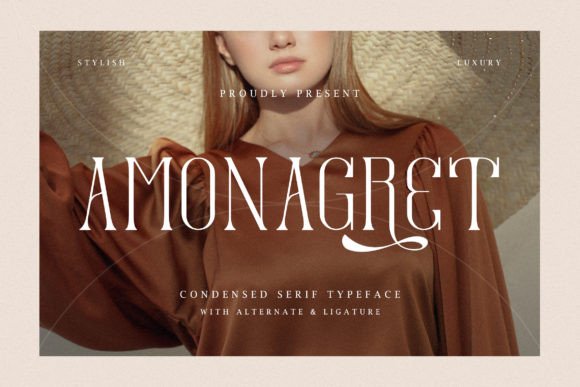
**Introducing Amonagret: The Font of Enchantment**
Unleash the magic of typography with Amonagret, a captivating serif font that will leave an everlasting mark on your designs. Its timeless elegance and alluring curves have been meticulously crafted to evoke a sense of sophistication and allure.
Step into a world of creative possibilities where Amonagret's graceful lines dance across your digital canvas. Whether you seek to cast a spell over your brand's image, weave enchantment into your invitations, or craft enchanting social media posts, this font will be your trusted ally.
With its versatile personality, Amonagret seamlessly transforms from ethereal to powerful, enchanting your audience at every turn. Its unique character makes it the perfect choice for logos, branding materials, headlines, body text, and anything else that calls for a touch of enchantment.
Imagine your website or branding materials adorned with the alluring curves and timeless beauty of Amonagret. It will captivate your visitors, leaving them spellbound and eager to delve deeper into your enchanting world.